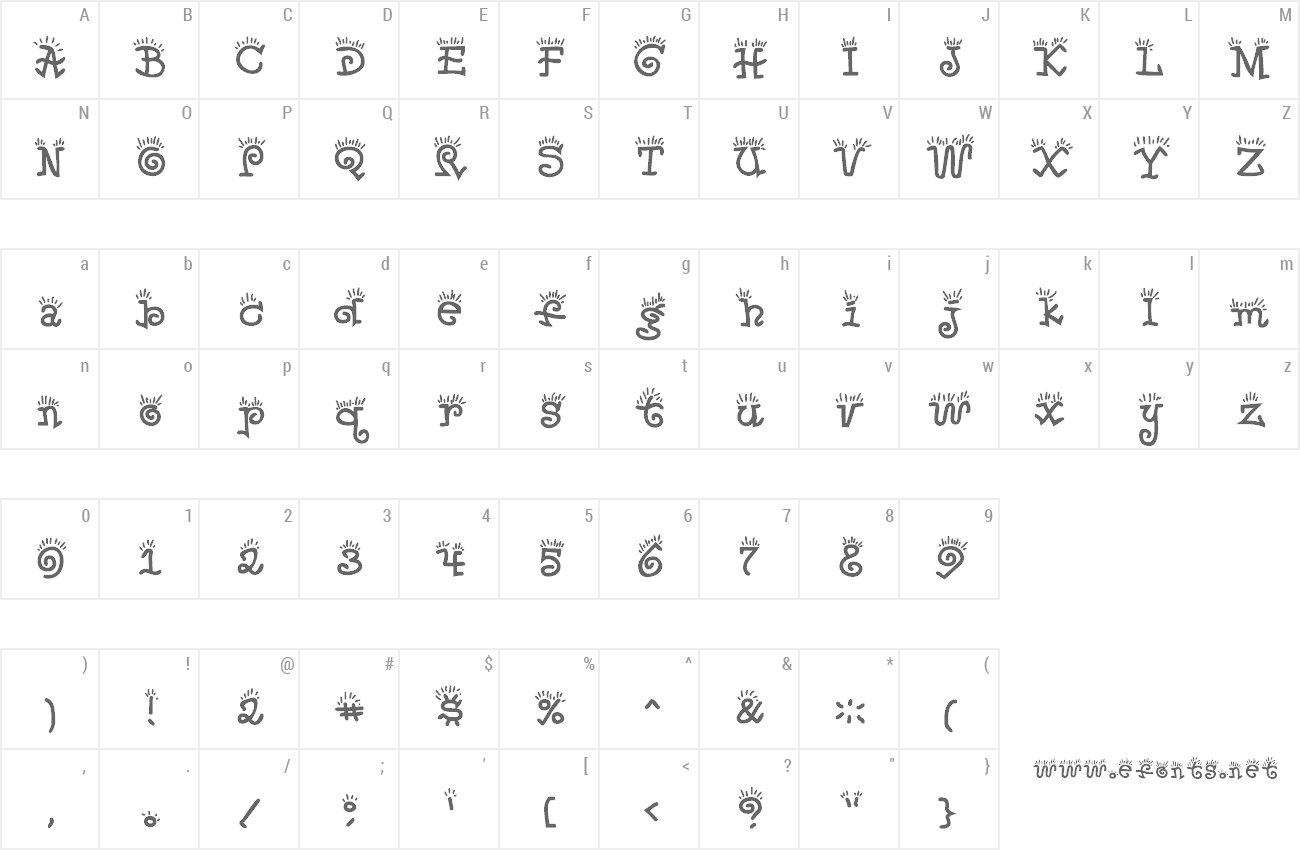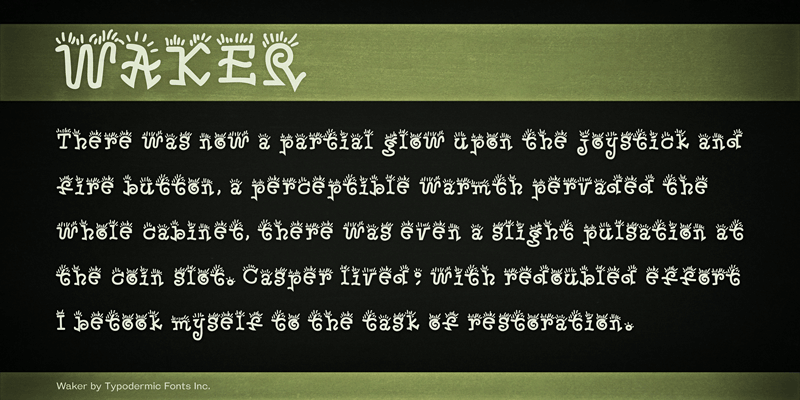
Waker is a font that can’t wait until later in the day like it probably should. Show some restraint, epicurean font. This font includes a license that allows free commercial use: sometimes referred to as a desktop license. This allows you to install the font on a computer and use it to create posters, web graphics, game graphics, t-shirts, videos, signs, logos and more. Read the license agreement for details. If you'd like to embed this font in an app, ebook, on the web or anything that's not covered by the desktop license agreement, visit the link below. You'll find distributors who offer different types of licenses or you can contact me for help. http://typodermicfonts.com/waker/ |